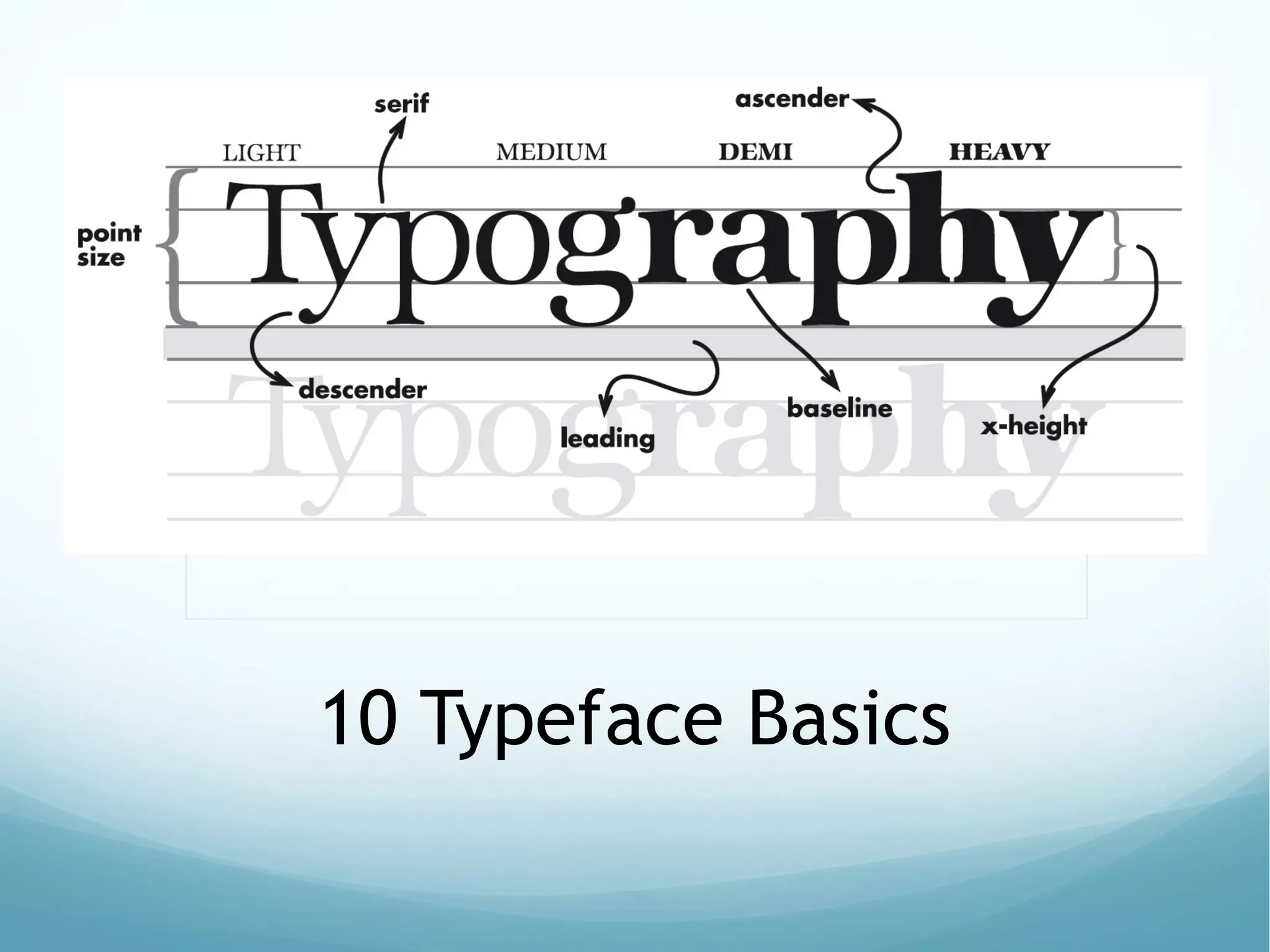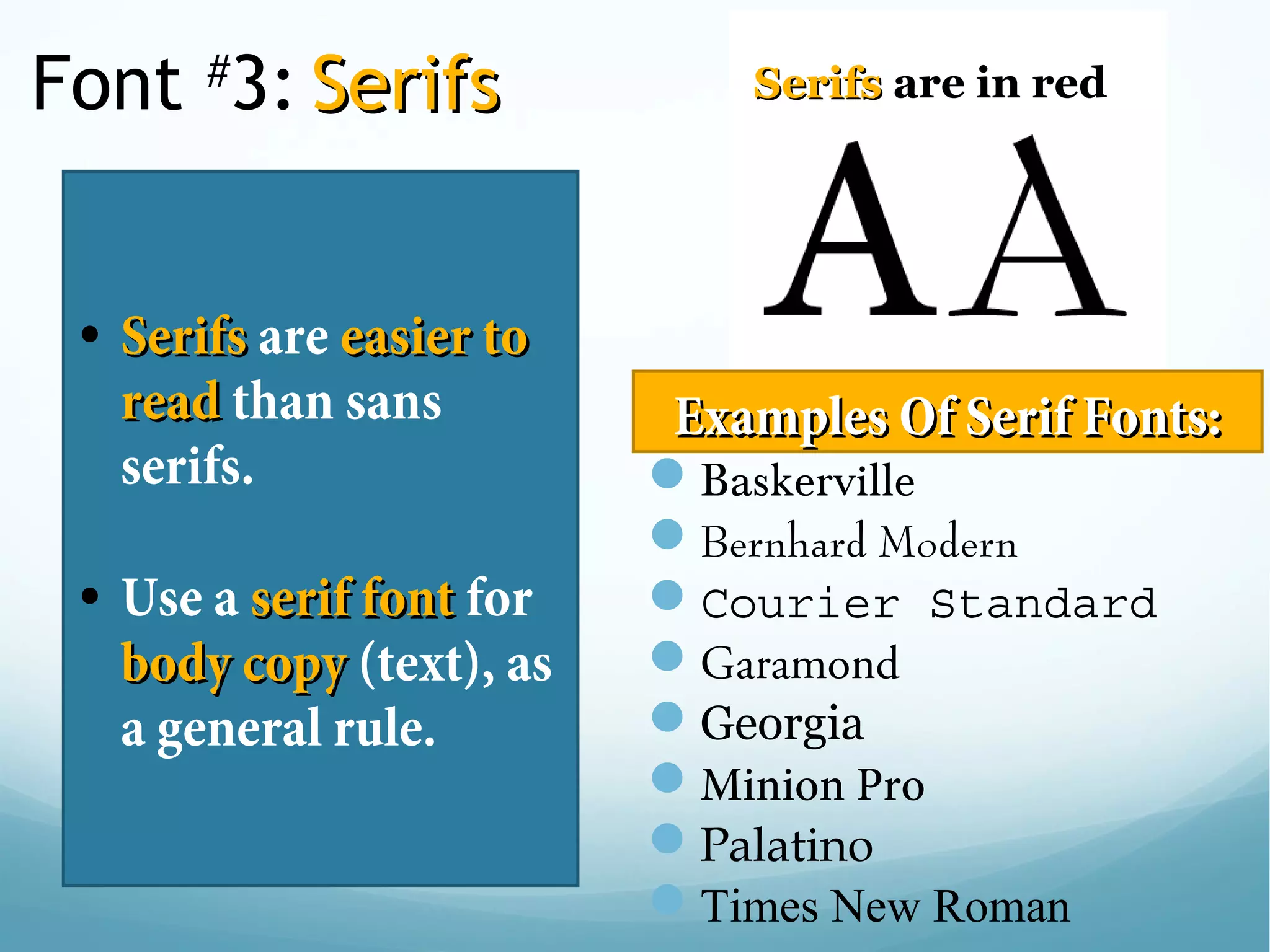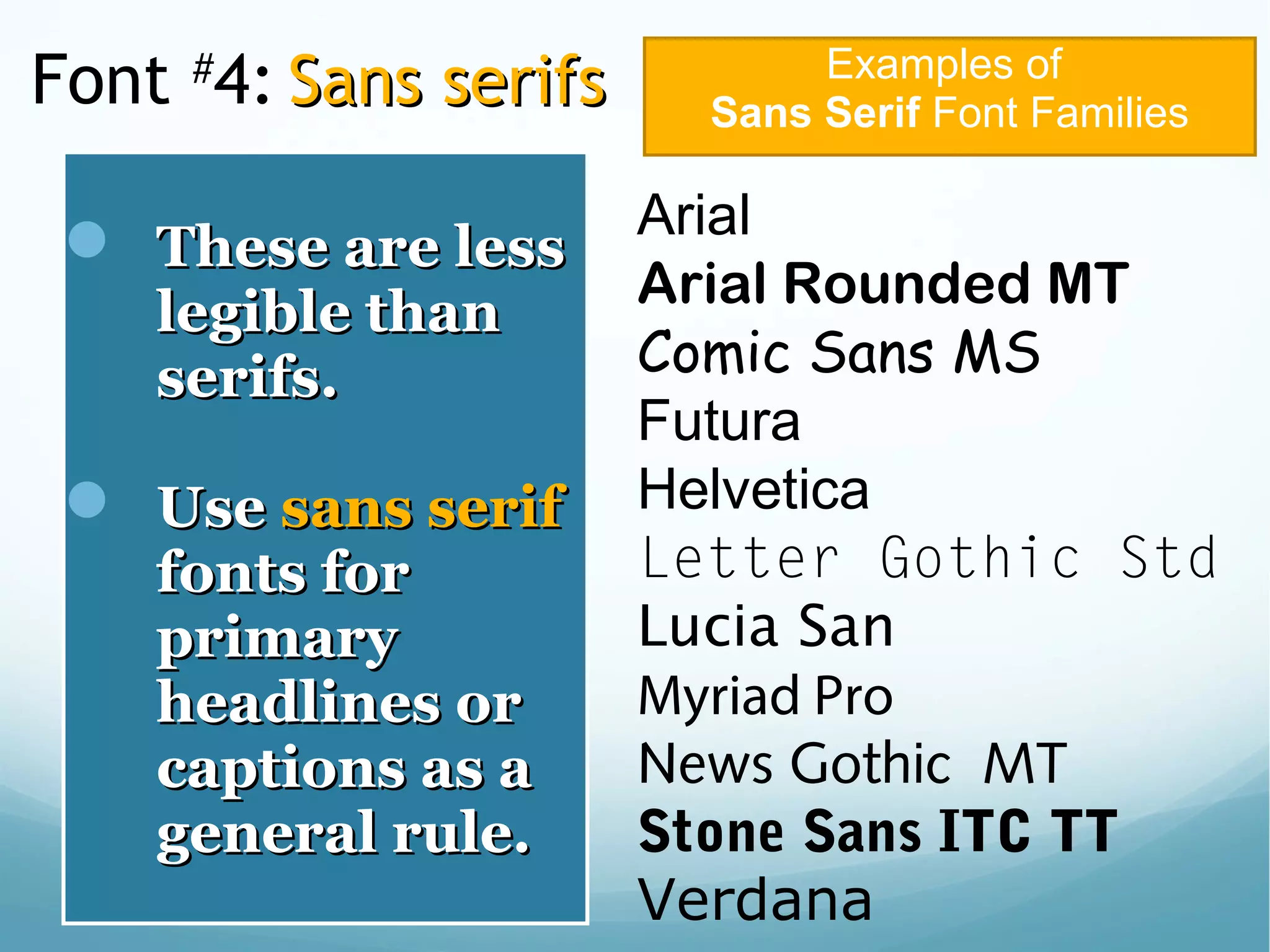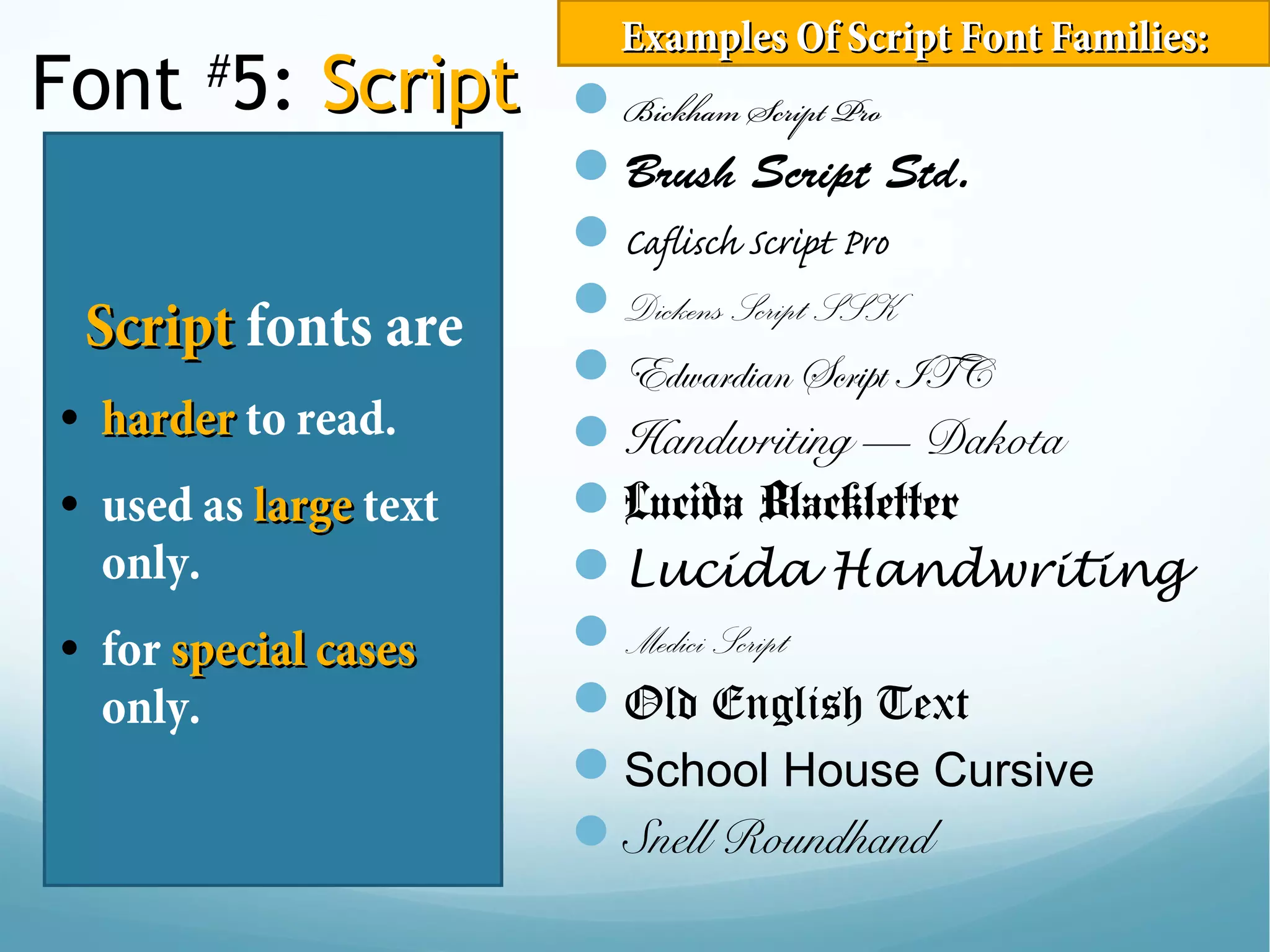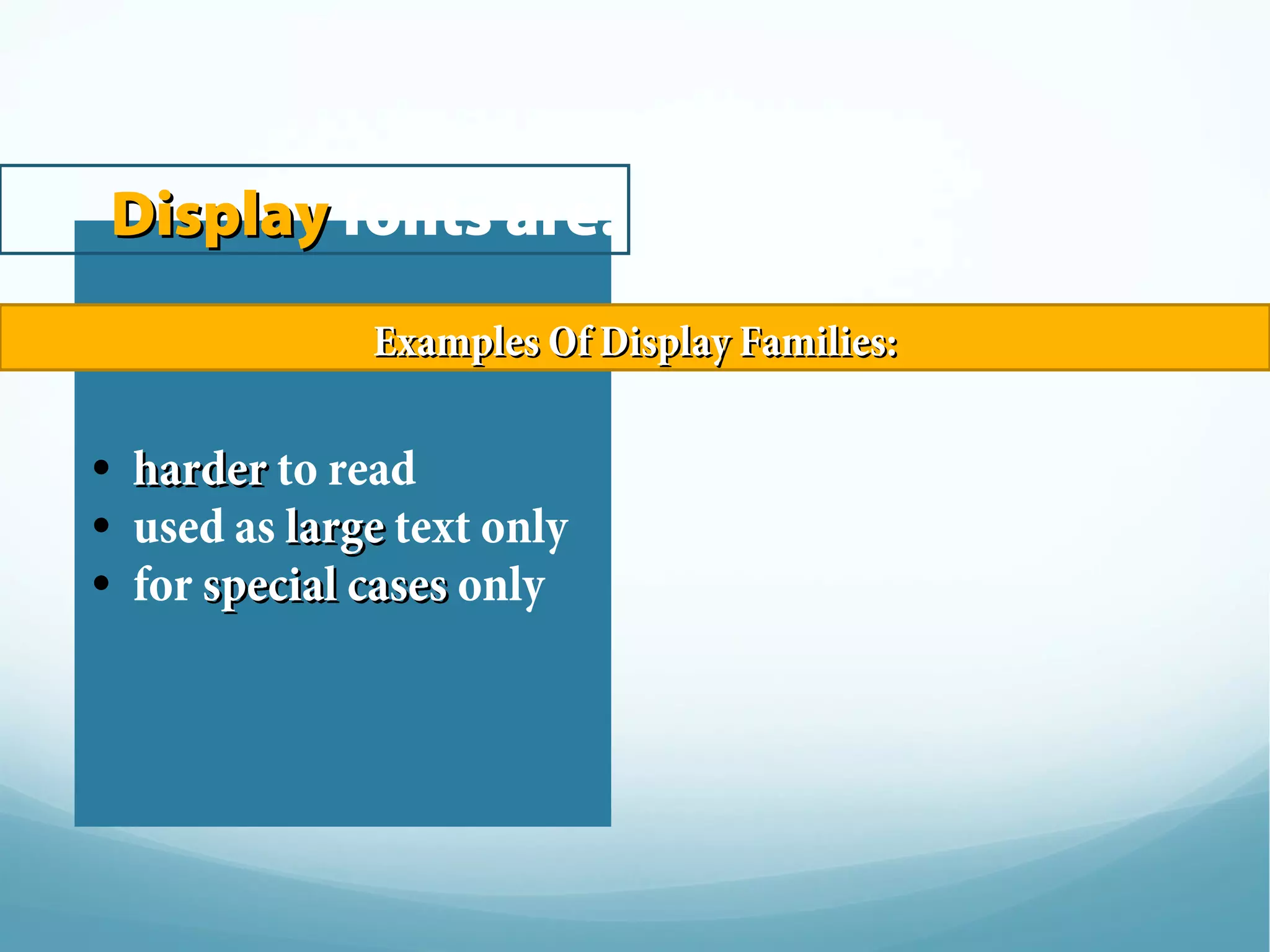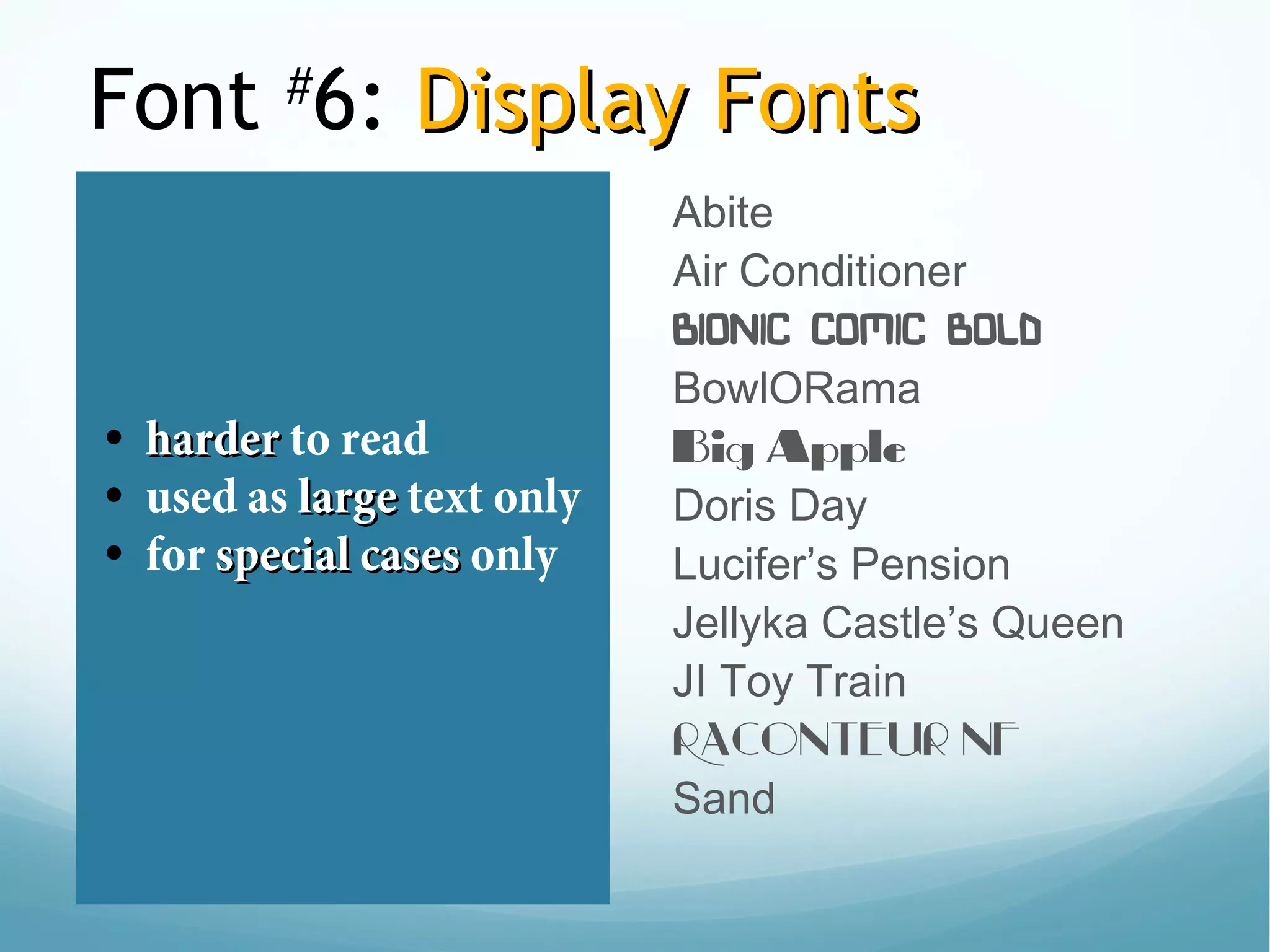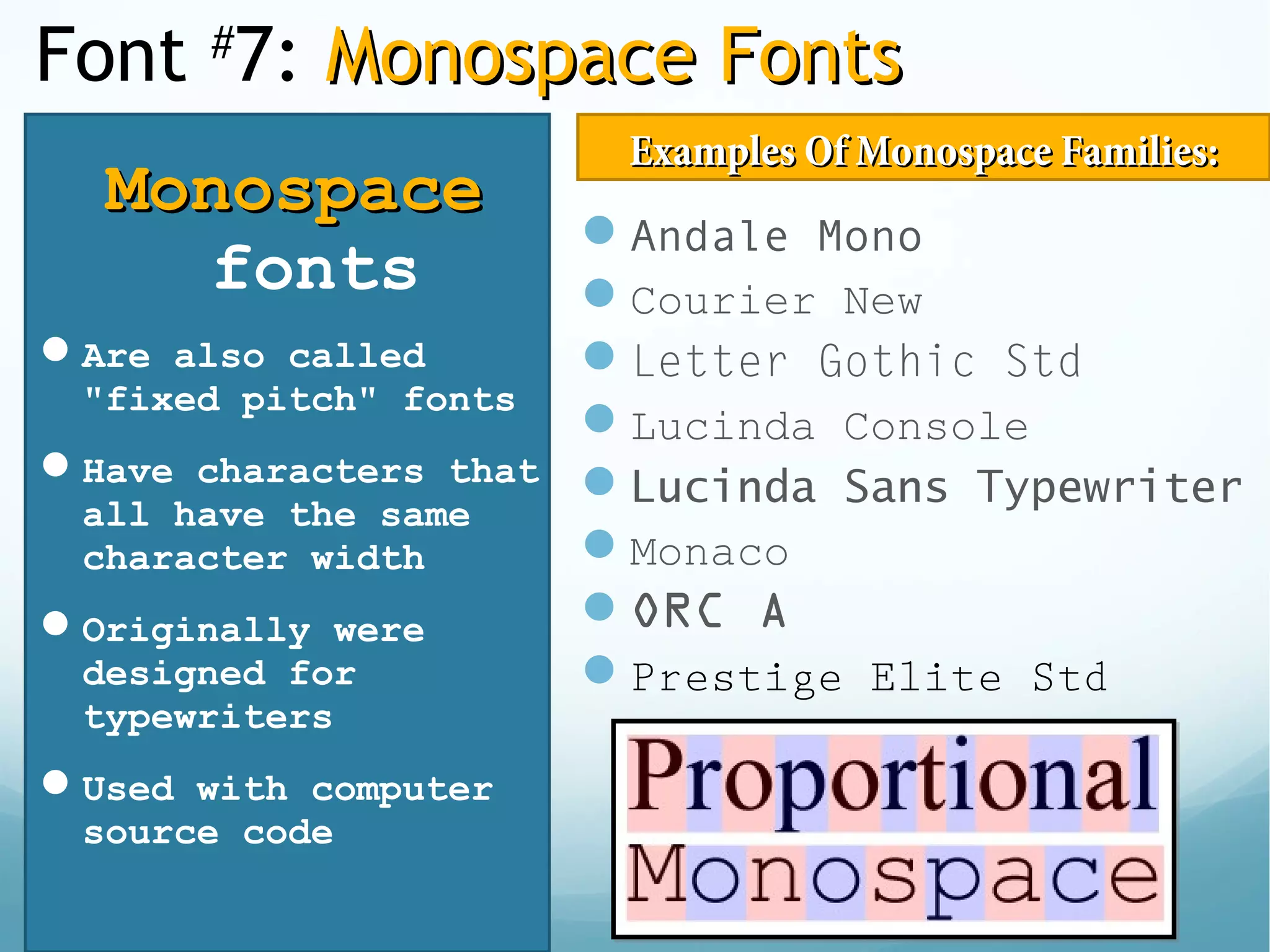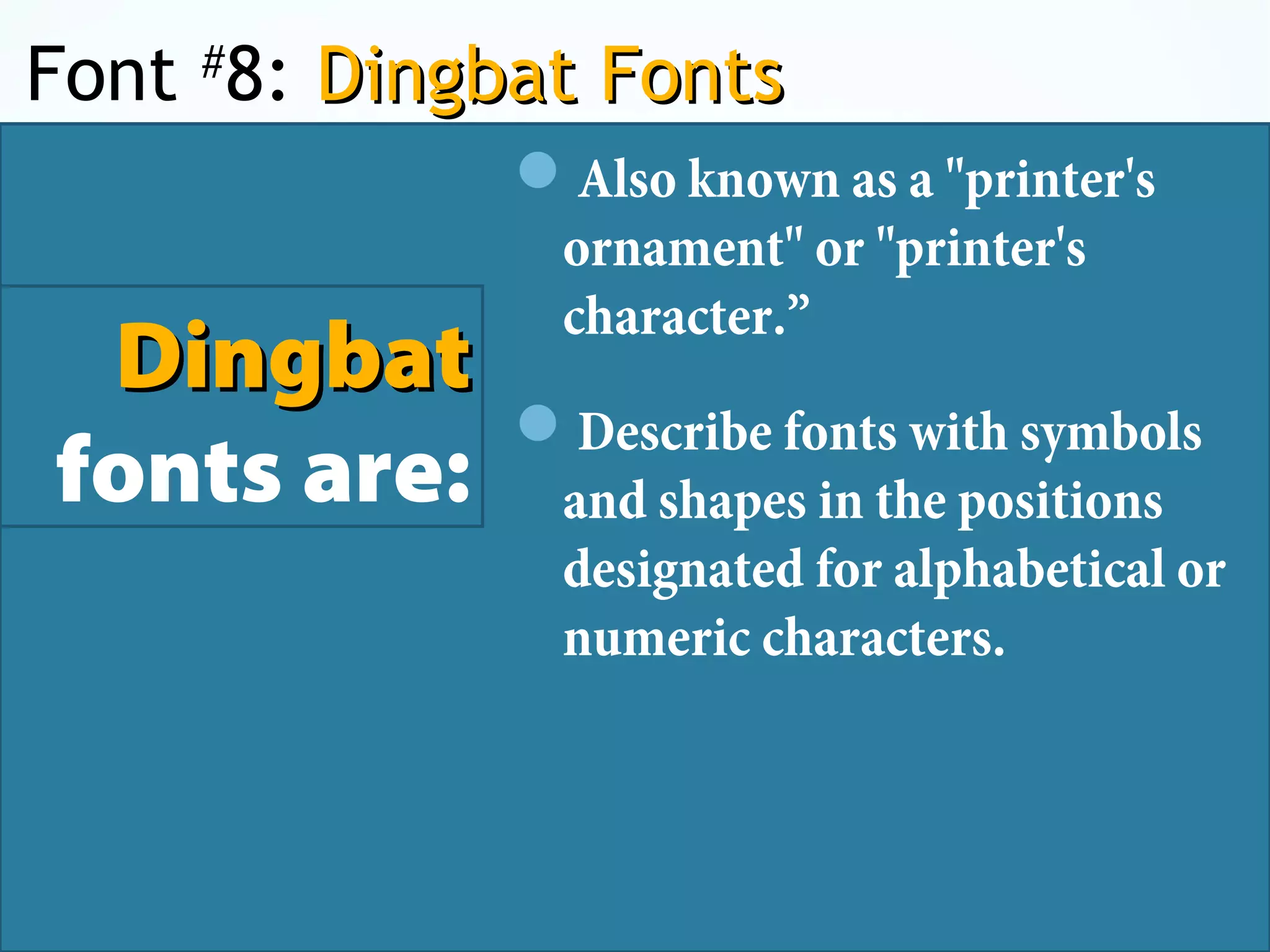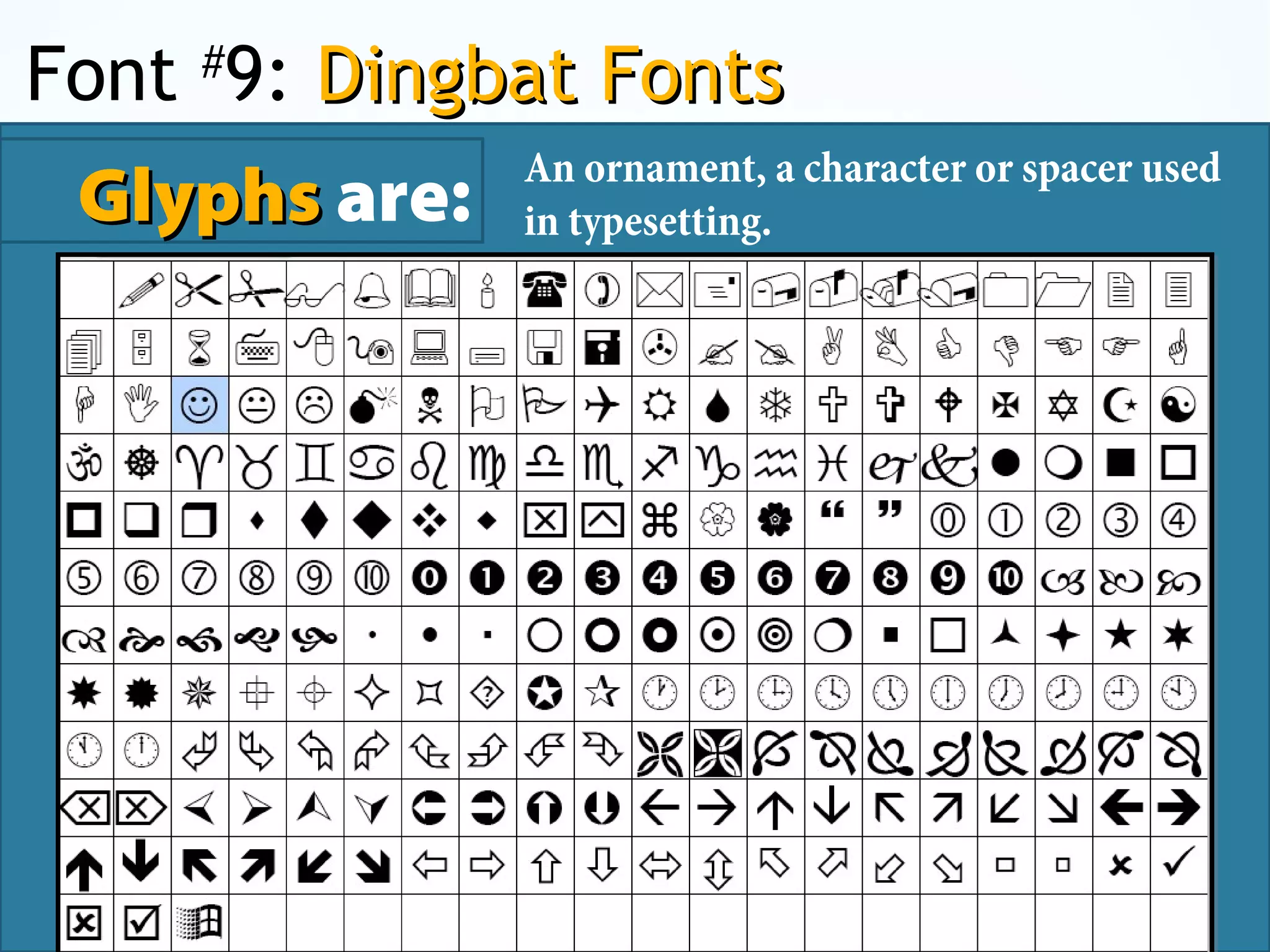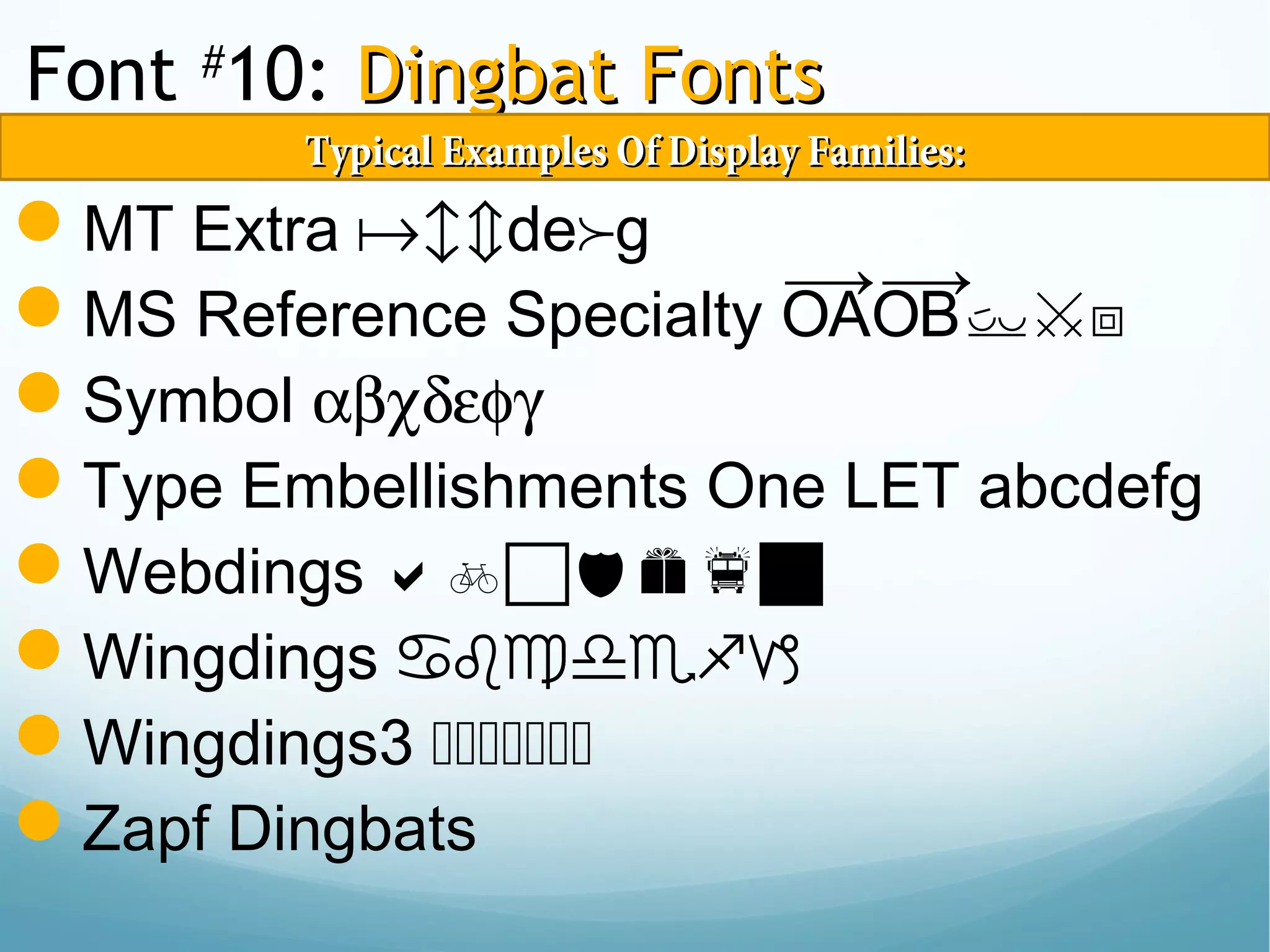
10 Typeface Basics
Ascenders: Strokes of letters that rise above the mean line of type (b,
d, f, h, k, l, t).
Descenders: Strokes of letters that fall below the baseline (g, j, p, q,
y)
x-height: The height of the main body of the lowercase letters. Most
sans serifs have large x-heights.
Type families (sometimes referred to as font): Versatile faces such as
Garamond, Franklin Gothic, Futura, etc. offer several variations of weight
and posture in the same typeface.
Display type: Point sizes 14 point and above.
Width rule: When copy gets too wide, readability drops off. The rule is
that copy should be no wider than an alphabet and a half or 39 characters.
Measuring Type
1. Type is measured in points.
2. 72 points = 1 inch,
3. 72-pt. type is 1 inch tall,
measured from the top of the
ascender to the bottom of the
descender.
4. ½-inch = 36-pt.
5. ¼-inch = 18-pt.
6. No letter has both an ascender
and a descender; however in
any given typeface and size, the
length of the ascender and
descender are the same.
Type Anatomy
1. Pair personality to purpose.
• Keep in mind the message you are trying to
communicate with your type.
• Sports, even women's sports, do not lend
themselves to feminine script, for example.
Getting down, dirty girls rugby gaining popularity
Or
Getting down, dirty girls rugby gaining popularity
2. When working with type, more
type families are not better.
• Limiting type to no
more than three font
family for the entire
book is a growing trend.
• When combining type
for headlines, remember
two’s company, three’s a
crowd.
• Limit spread designs to
one distinct type
supported by something
simple.
A family of fonts is
composted of different
stylesstyles.
1: Reading pull-down information
Styles of font
in family
1. Light
2.
Condensed
Styles of font
in family
1. Light
2.
Condensed
Font Family
Myriad Pro
Font Family
Myriad Pro
2: Classifications of font families
6 basic font
classes
1.1. SerifSerif
A. Old Style
B. Transitional
C. Modern
D. Slab Serif
2.2. Sans Serif
(sans = without)
3. Script
A. Blackletter
3. Display
4. Monospaced
5. Dingbat
3: SerifsSerifs
• SerifsSerifs are easier to
readread than sans
serifs.
• Use a serif font for
body copy (text), as
a general rule.
SerifsSerifs are in red
Baskerville
Bernhard Modern
Courier Standard
Garamond
Georgia
Minion Pro
Palatino
Times New Roman
Examples Of Serif Fonts:
4: Sans serifs
 These are less
legible than
serifs.serifs.
 UseUse sans serif
fonts for
primaryprimary
headlines or
captions as a
general rule.
Examples of
Sans Serif Font Families
Arial
Arial Rounded MT
Comic Sans MS
Futura
Helvetica
Letter Gothic Std
Lucia San
Myriad Pro
News Gothic MT
Stone Sans ITC TT
Verdana
Font #
5: ScriptScript
ScriptScript fonts are
• harderharder to read.
• used as largelarge text
only.
• for special cases
only.
Bickham Script Pro
Brush Script Std.
Caflisch Script Pro
Dickens Script SSK
Edwardian Script ITC
Handwriting — Dakota
Lucida Blackletter
Lucida Handwriting
Medici Script
Old English Text
School House Cursive
Snell Roundhand
Examples Of Script Font Families:
• harderharder to read
• used as largelarge text only
• for special cases only
Examples Of Display Families:
DisplayDisplay fonts are:
Font #
6: Display Fonts
• harderharder to read
• used as largelarge text only
• for special cases only
Abite
Air Conditioner
Bionic Comic Bold
BowlORama
Big Apple
Doris Day
Lucifer’s Pension
Jellyka Castle’s Queen
JI Toy Train
Raconteur NF
Sand
Font #
7: Monospace Fonts
Monospace
fonts
Are also called
"fixed pitch" fonts
Have characters that